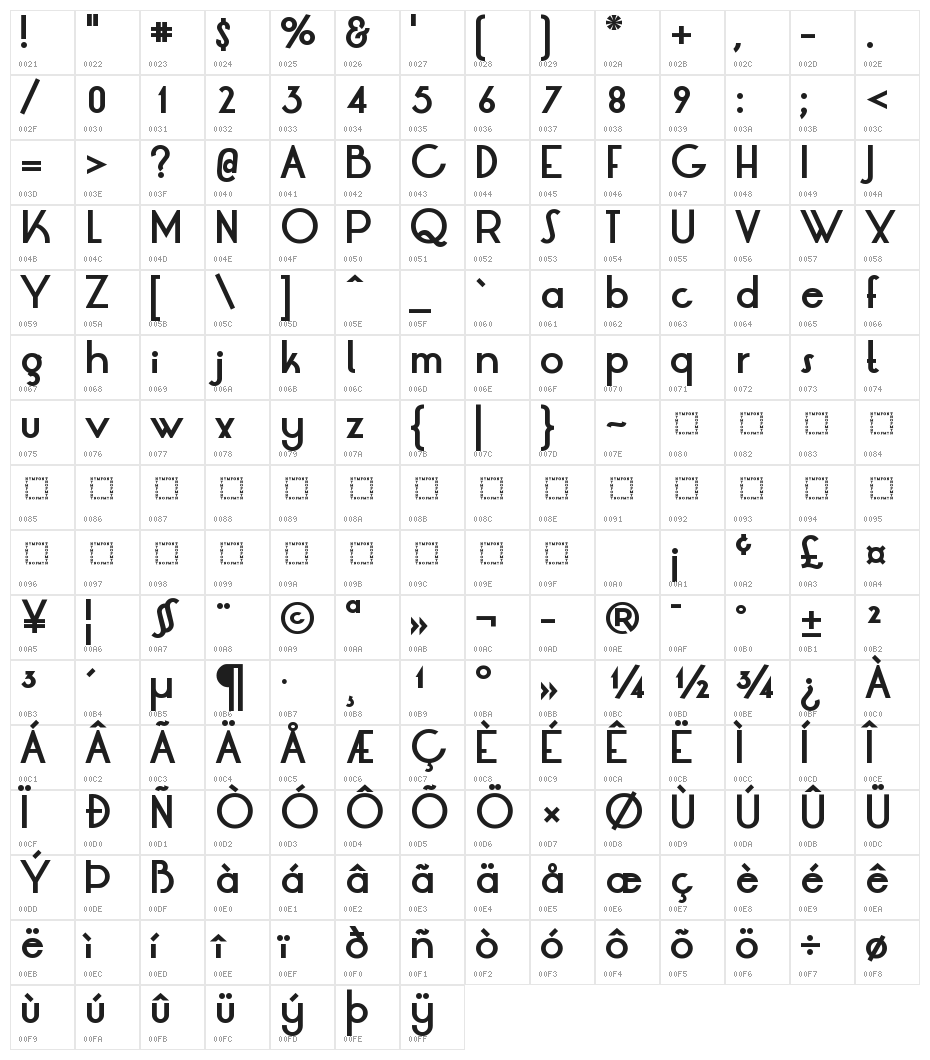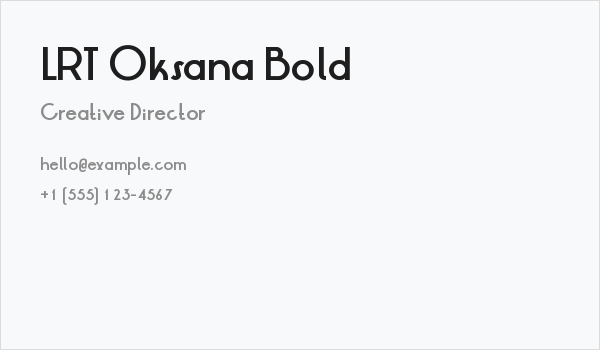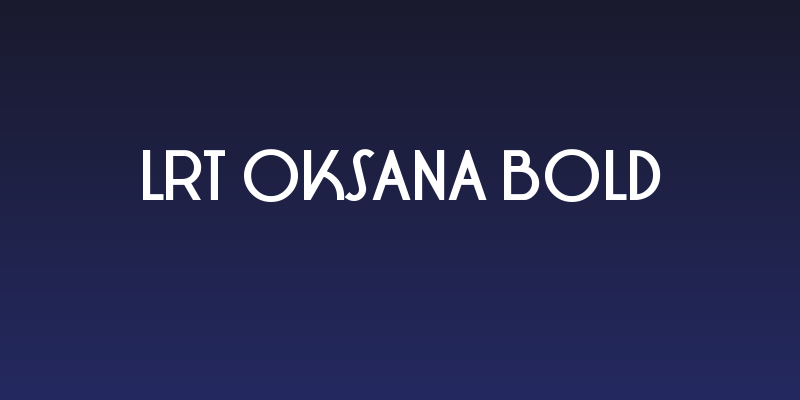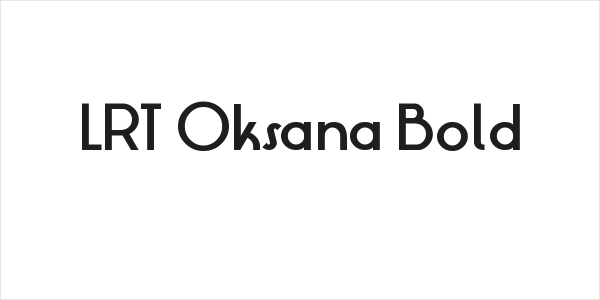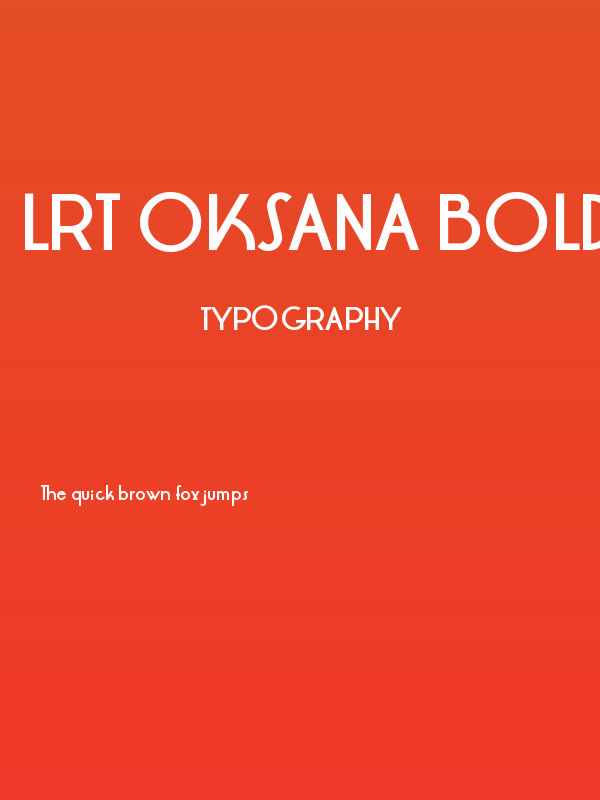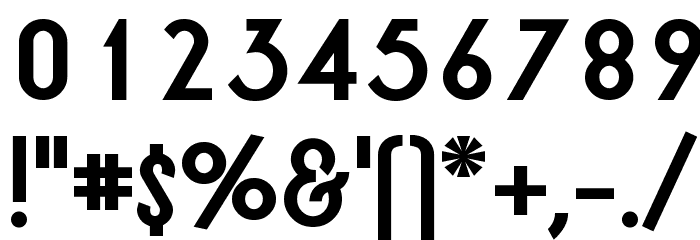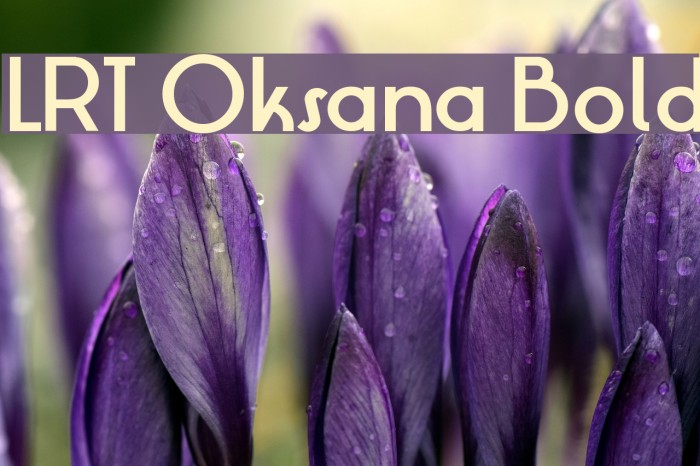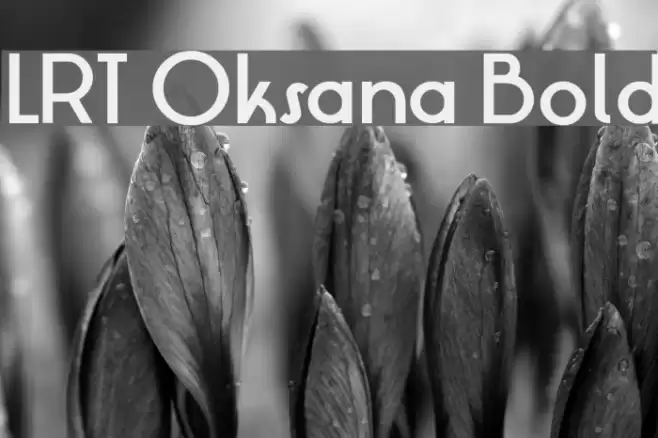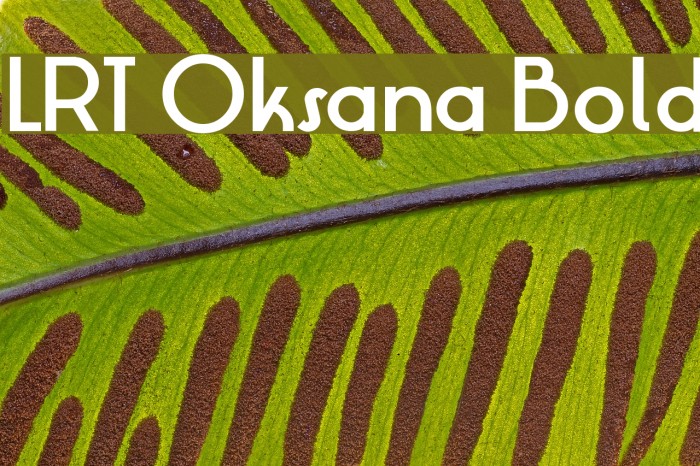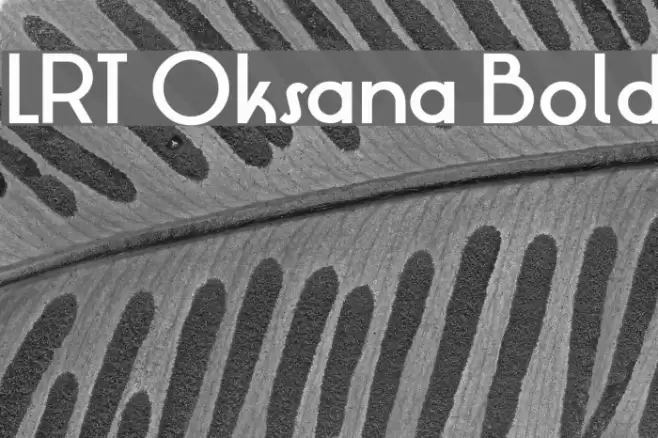
LRT Oksana Bold Font
LRT Oksana Bold Description
This font features a bold and geometric design with clean lines and a modern aesthetic. The uppercase letters are distinct with sharp angles and a uniform stroke width, giving them a strong presence. The lowercase letters maintain a similar geometric style, with some characters like 'g' and 'y' having unique, stylish tails. The numerals are clear and consistent, making them highly legible. Special characters are well-integrated, maintaining the overall bold and modern feel. This font is versatile, suitable for both digital and print media.
| Proposed Projects | Ideal for branding, headlines, posters, and digital media where a strong, modern presence is desired. |